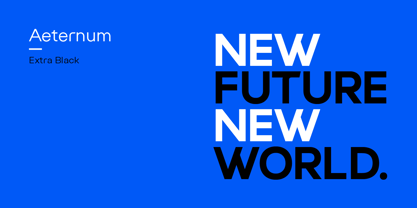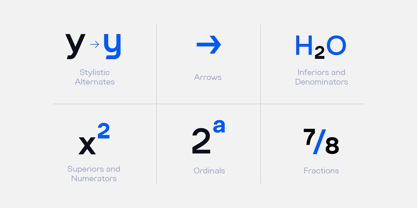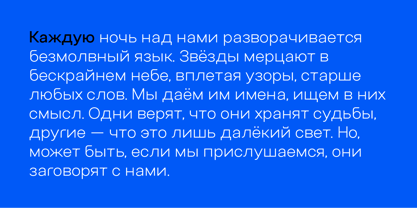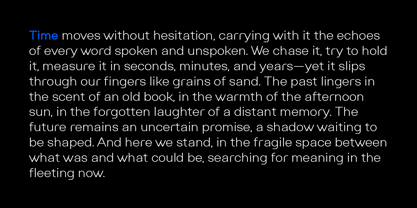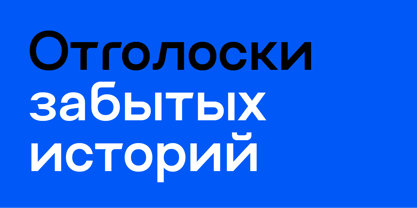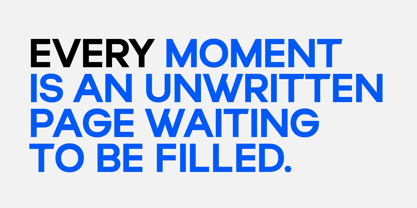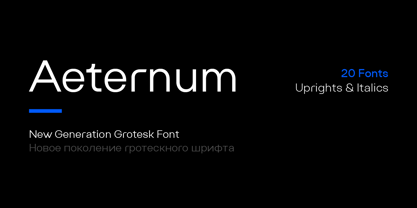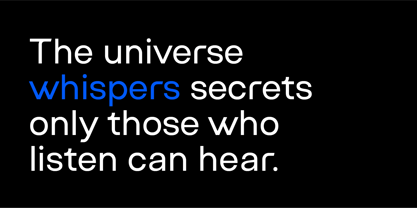
Aeternum
by Serdar Ozturk
The Aeternum Font Family was designed by Serdar Öztürk and published by Serdar Ozturk. Aeternum contains 20 styles and family package options. More about this family
Aeternum is a modern and confident typeface designed for impact and clarity. With extensive language support including Cyrillic, it’s ideal for UI, signage, posters, and editorial design. Sharp geometry meets timeless elegance, making it a versatile choice across digital and print. Aeternum blends strength with sophistication—built to last, designed to impress.
Designers: Serdar Öztürk
Foundry: Serdar Ozturk